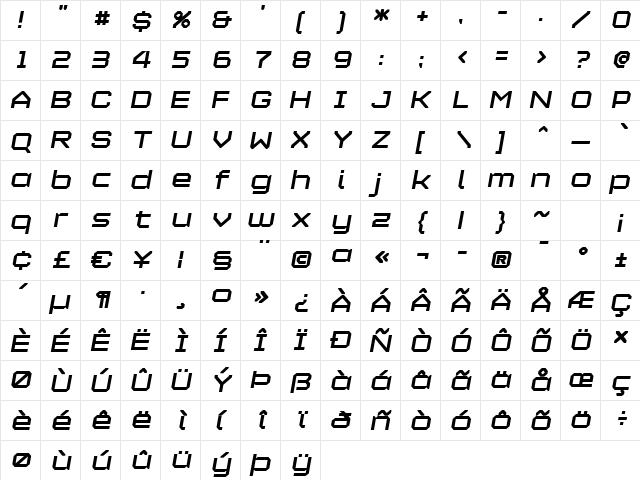
Maetl BoldOblique
BoldOblique · YouWorkForThem Michael Cina ·
Design Context for Maetl Typeface
Maetl is a composed and adaptable typeface that performs quietly and consistently across a wide range of design contexts. Its italic angle brings a sense of urgency and motion to the letterforms. The heavy weight commands attention and anchors typographic hierarchies.